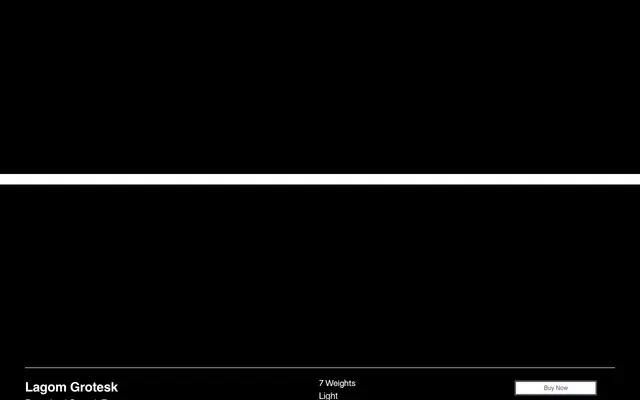
Lagom Grotesk
A disciplined contemporary grotesque spanning five weights, designed for branding, editorial systems and screen interfaces where legibility must not compete with content.
Built around controlled spacing and balanced proportions, Lagom Grotesk aims for a neutral but refined voice that reads consistently across headlines, running text and UI environments. Subtle optical adjustments across the five weights produce a stable typographic texture suited to both print and screen. The family covers 206 Latin languages across 560 glyphs, making it a practical choice for multilingual identity and communication projects.
The foundry explicitly describes it as a contemporary grotesk, built around disciplined proportions, controlled spacing and functional simplicity, with no excessive stylisation.